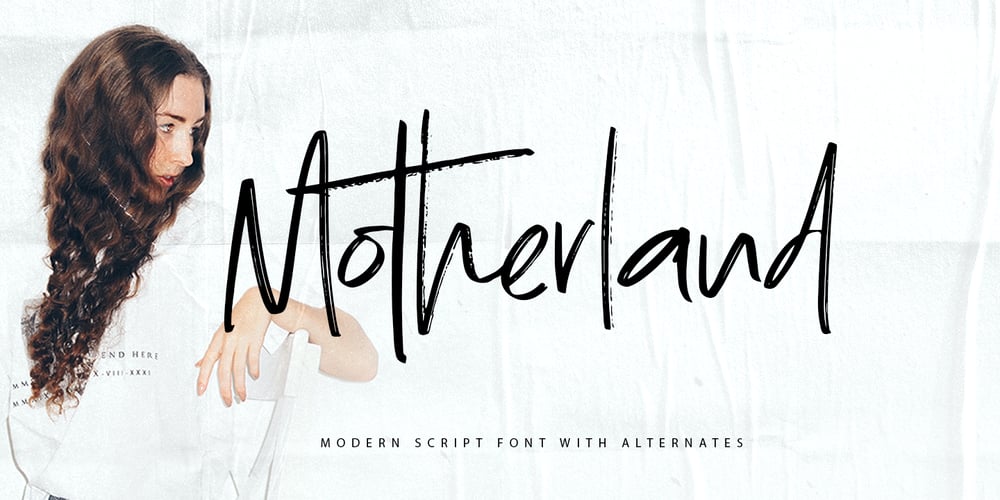
Motherland
Motherland font
Motherland Font Family was designed by Gitayogi Irhandi and published by Scratch Design. Motherland contains 2 styles and family package options. Introducing Moonlight it’s modern handwriting with a signature style and brush texture. This font comes in 2 styles with alternates. The Moonlight has natural handwriting texture making this font look authentic but still readable in incredibly versatile. This font will look outstanding in any occasion design concept, whether it’s being used on colorful backgrounds or as a stand as a headline in a minimalist background!Moonlight has multi-language support, swashes, alternate and ligature dan you can apply it in OpenType mode in adobe photoshop or adobe illustrator. Please enjoy the Moonlight signature Font which makes some stunning designs.